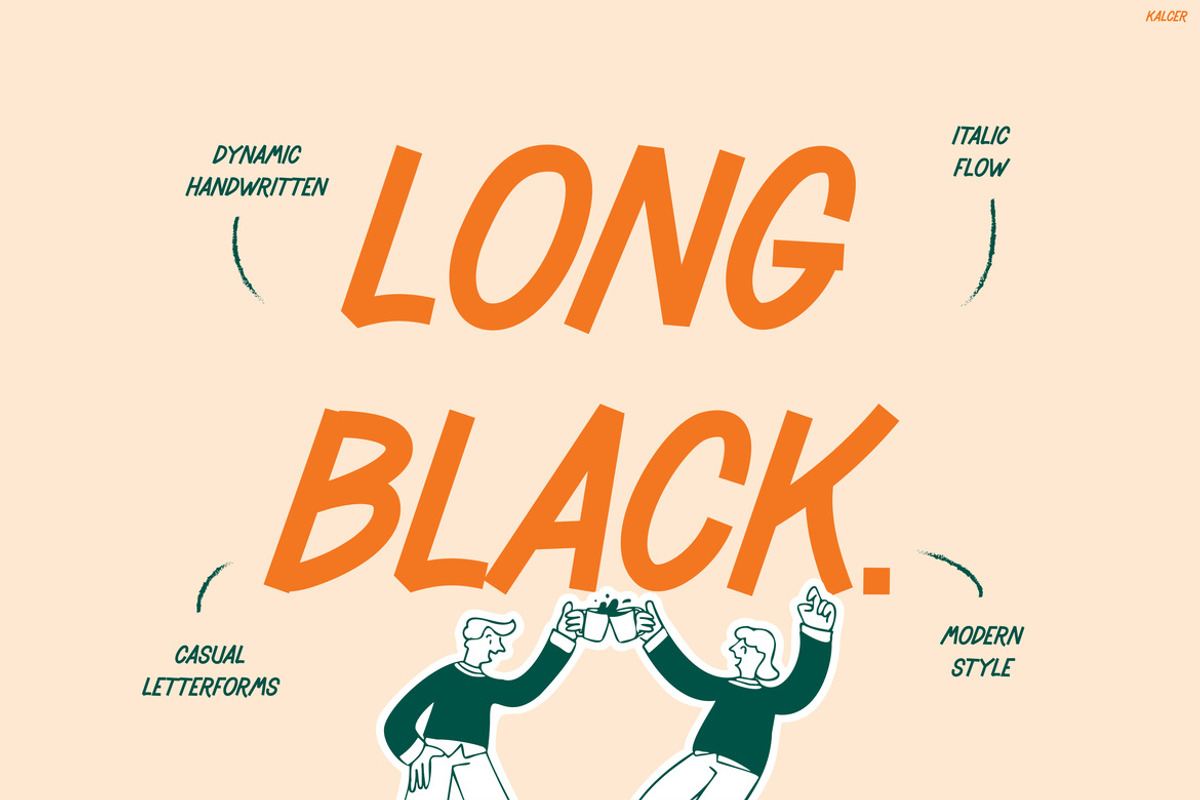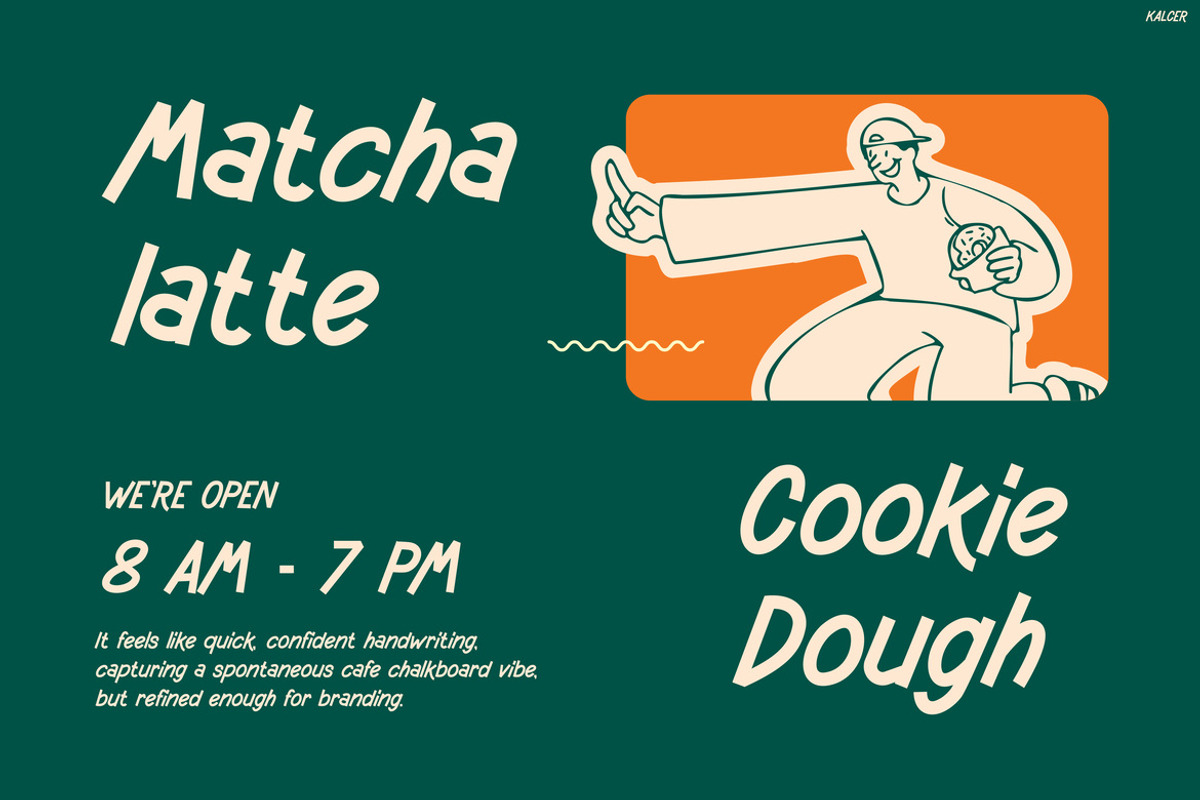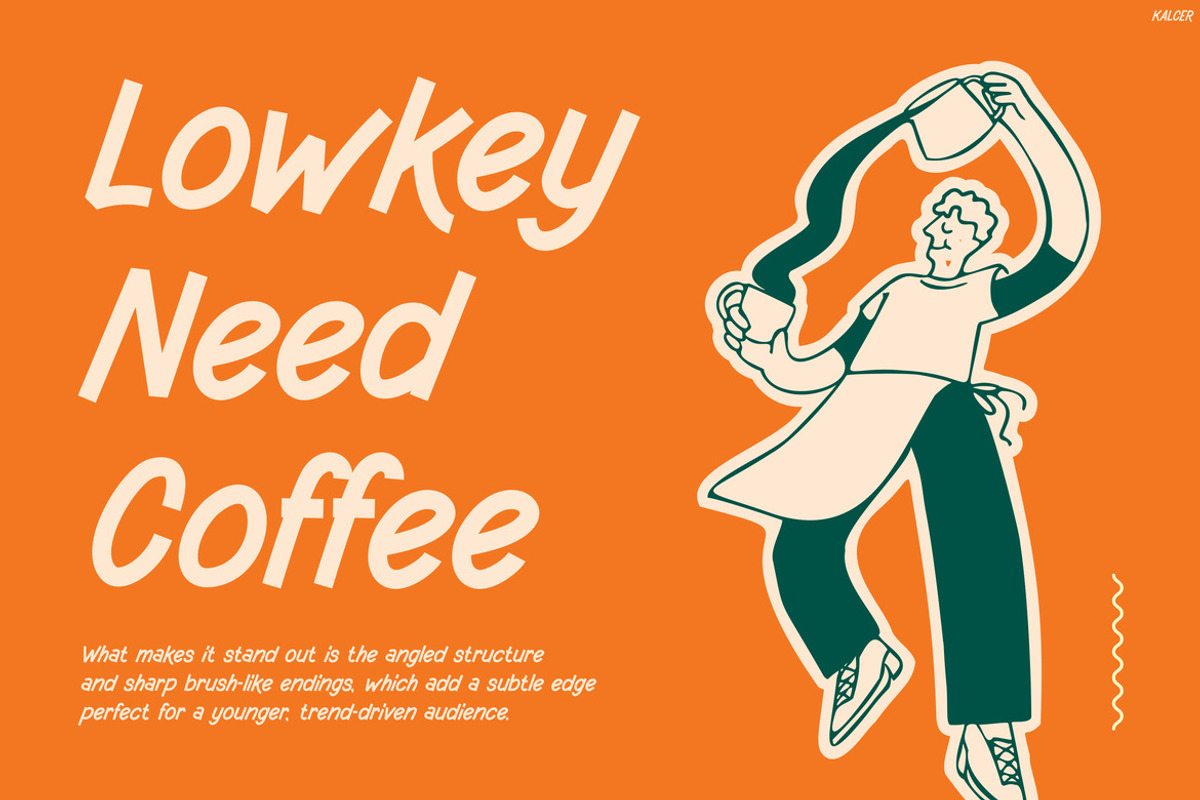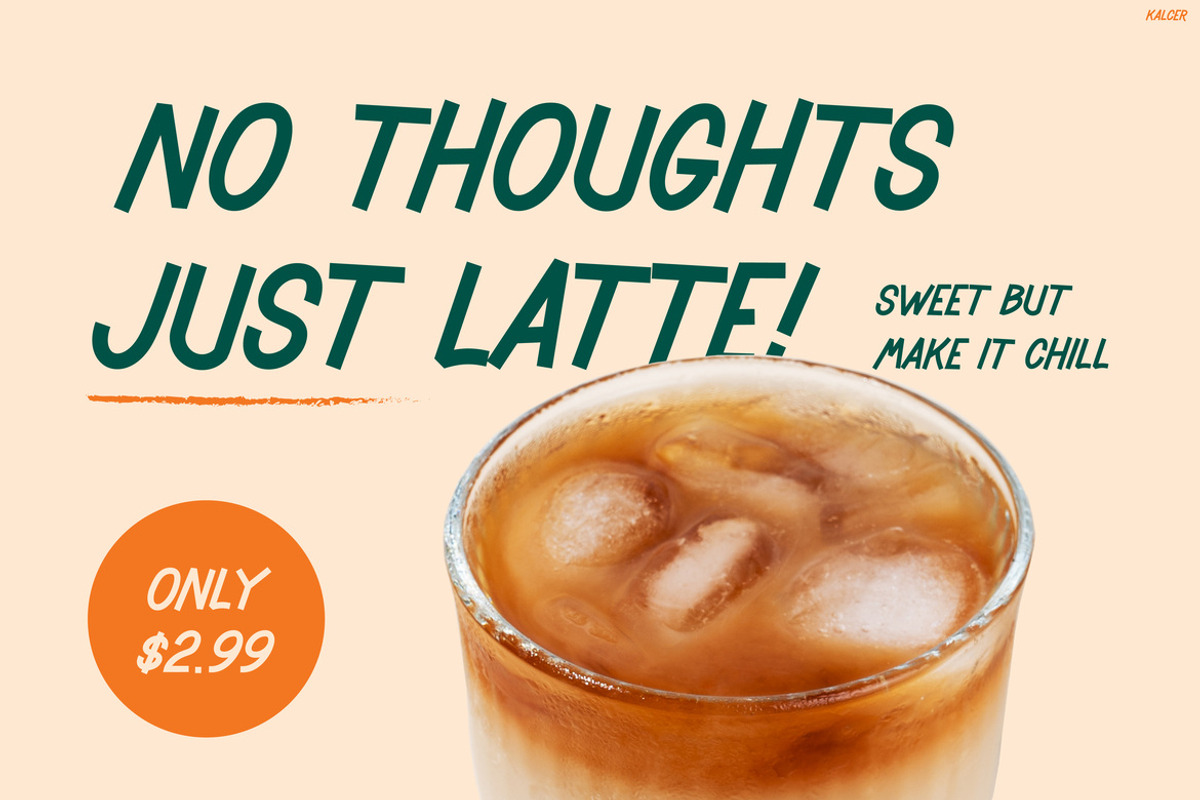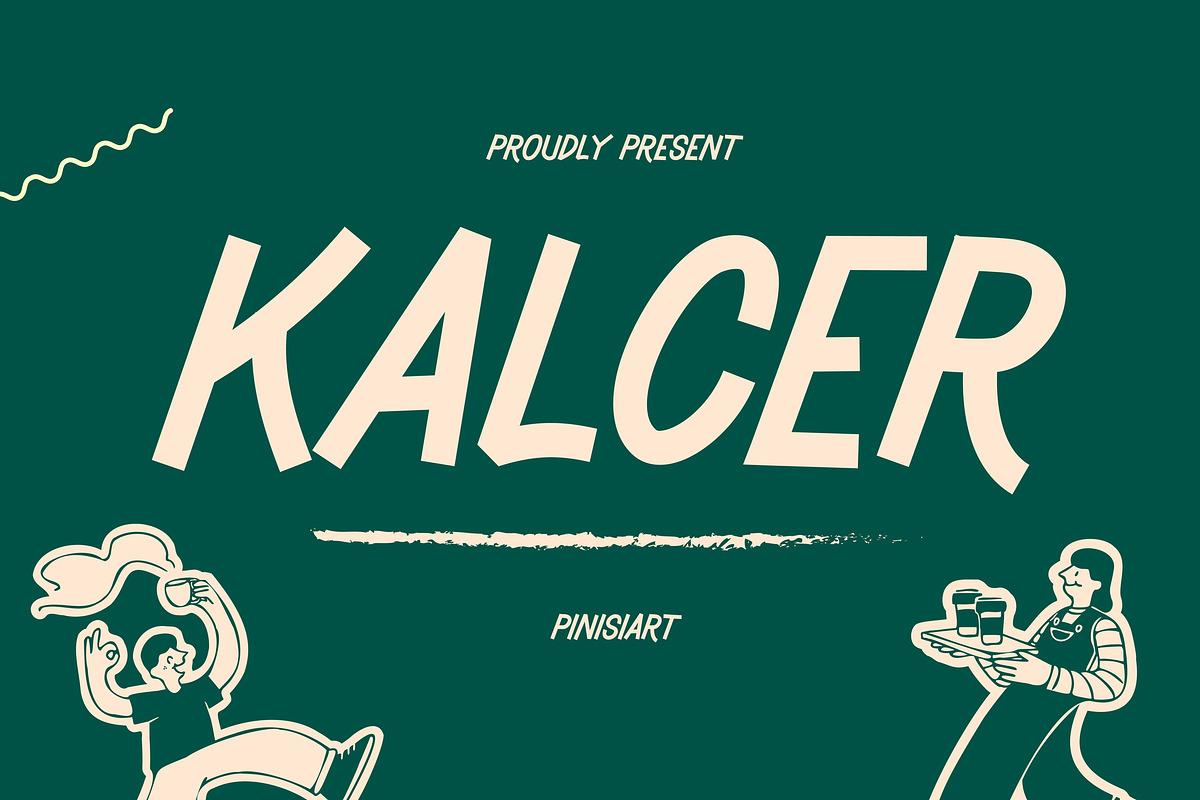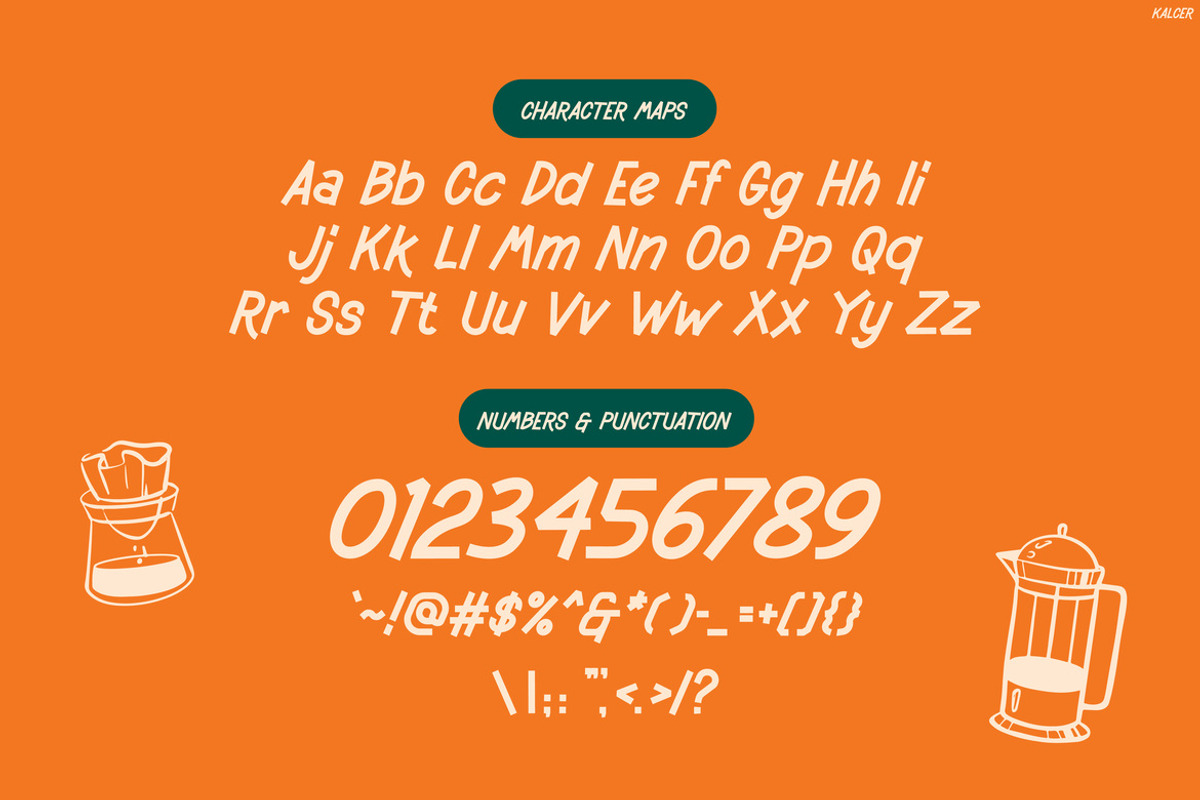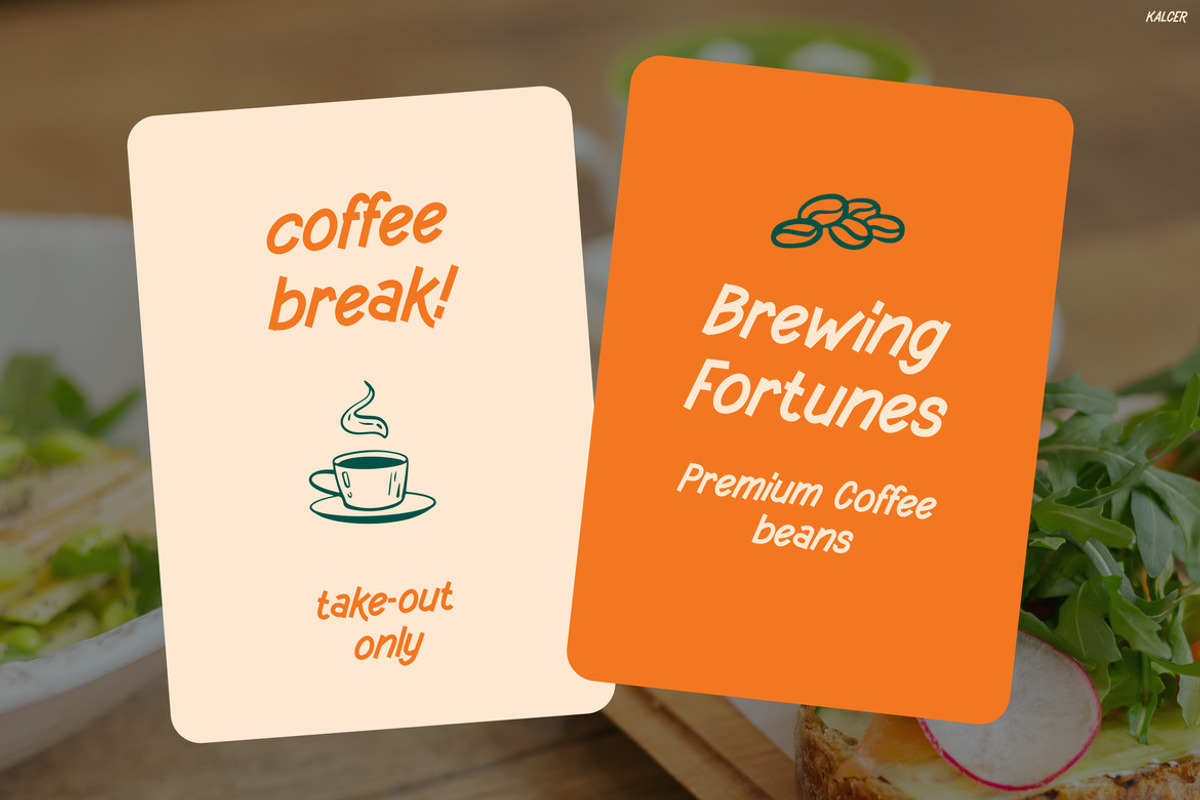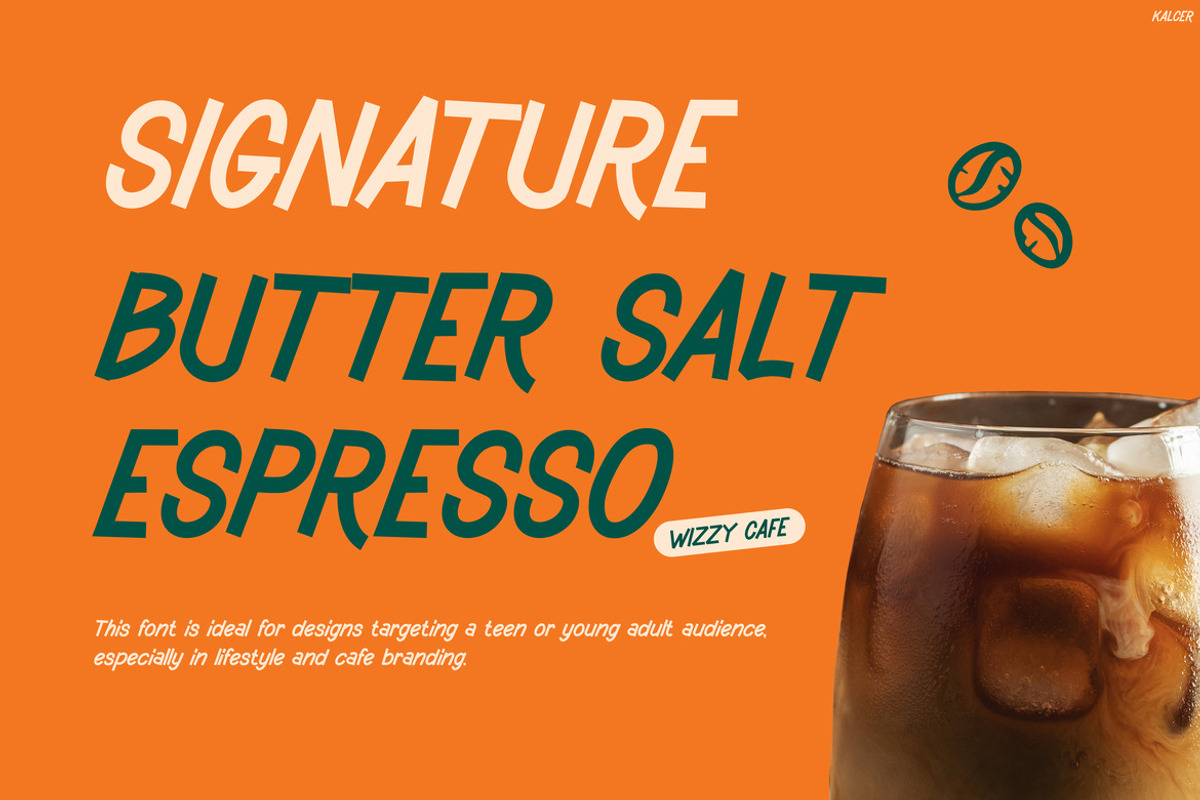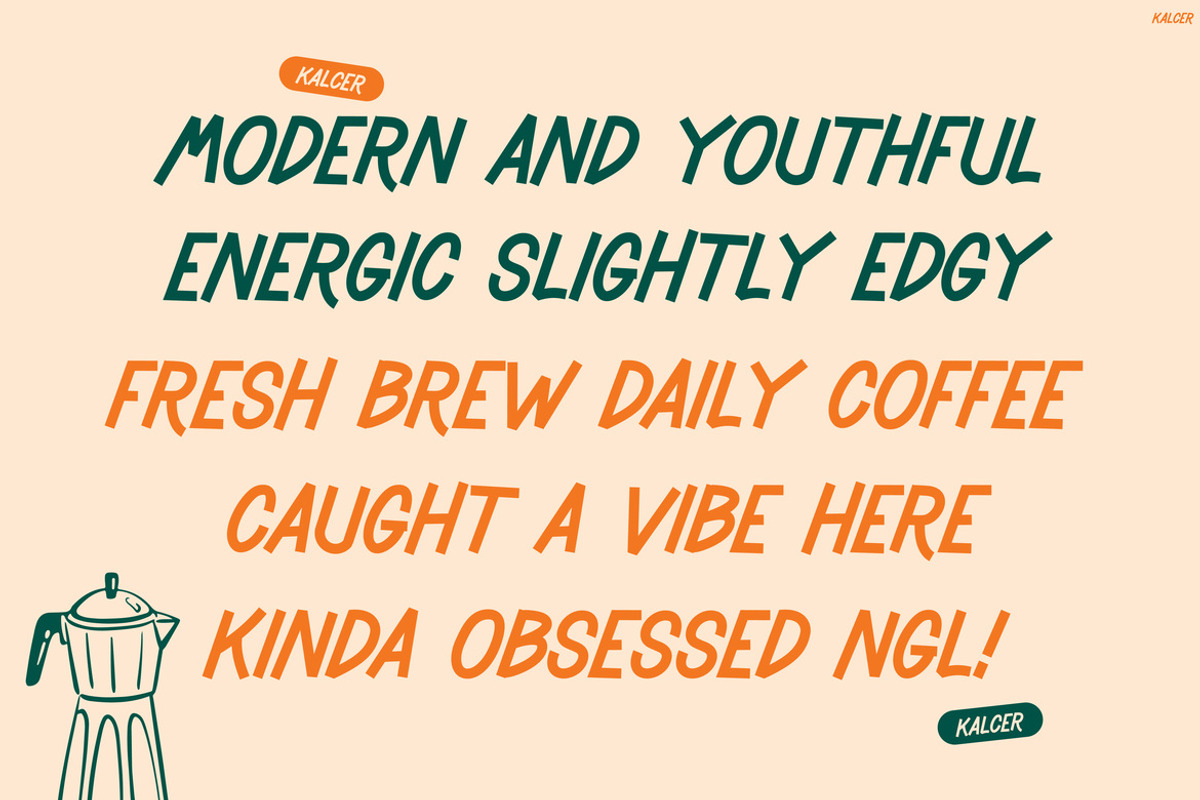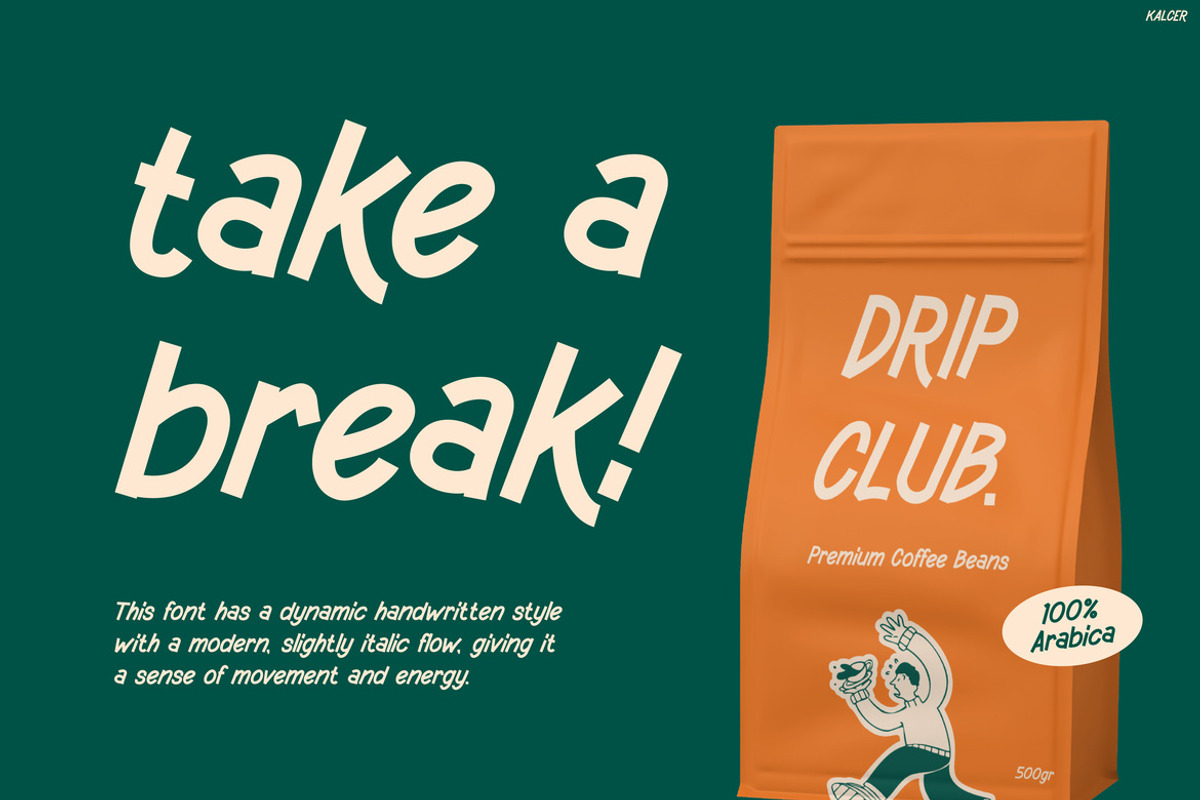
Kalcer
Kalcer – Playful Bold Coffee-Inspired Display Font
Kids Font Kalcer is a vibrant, hand-drawn display font that instantly captures attention with its bold personality and expressive strokes. Moreover, its playful yet slightly edgy aesthetic blends organic curves with dynamic letterforms, creating a lively visual rhythm. As a result, the font feels both modern and youthful, making it highly appealing for eye-catching designs. In addition, the irregular baseline and brush-like texture add a handcrafted charm, so every word appears energetic and authentic. Not only that, but its strong contrast—especially on warm orange and deep green backgrounds—enhances readability while maintaining a fun, standout look. Therefore, Kids Font Kalcer functions perfectly as a headline font, delivering both clarity and emotional impact.
Kids Font Kalcer is designed for creators who want to add personality without losing clarity. Furthermore, it includes bold uppercase styles, quirky alternates, and a relaxed handwritten feel, which together make designs look more engaging and approachable. At the same time, its playful imperfections create a sense of authenticity, allowing your visuals to feel warm and relatable. For instance, when used in café branding or social media posts, it immediately brings a friendly and inviting tone. Consequently, this font becomes a reliable choice for storytelling visuals that aim to connect with audiences on a deeper level.